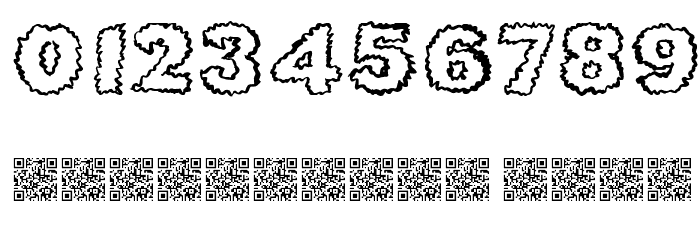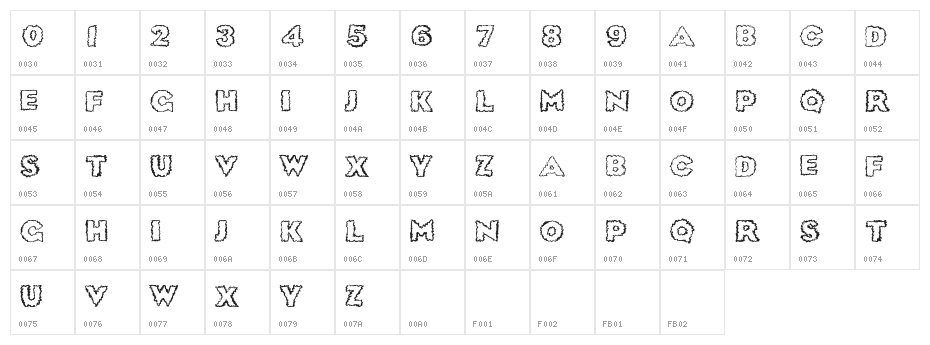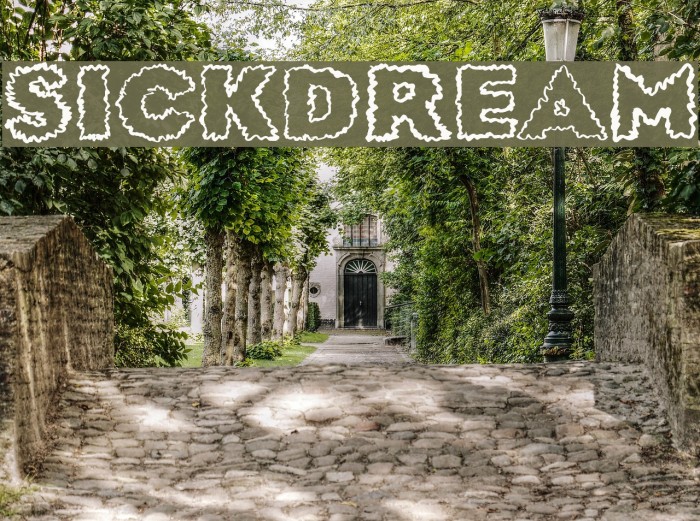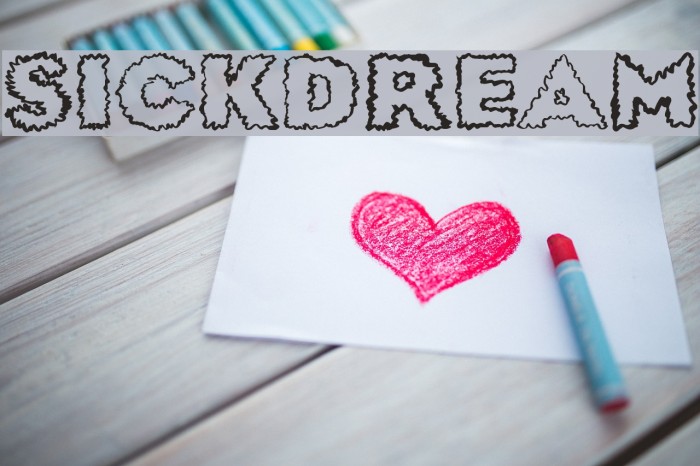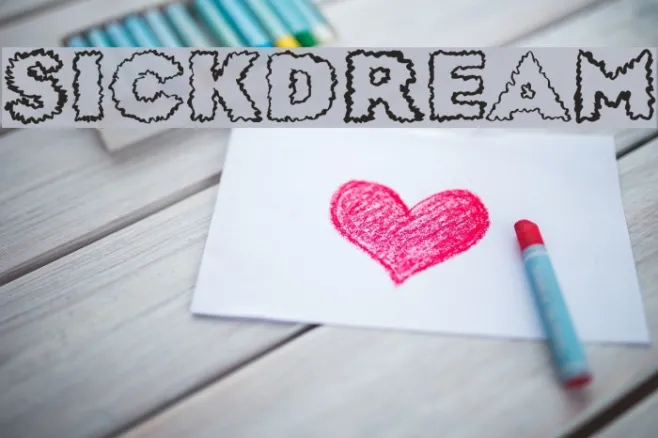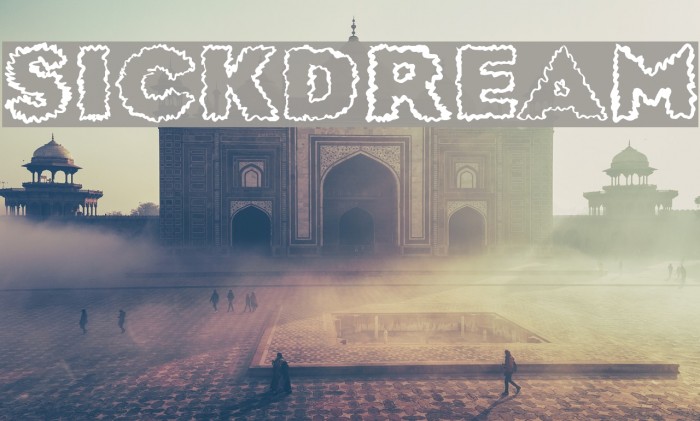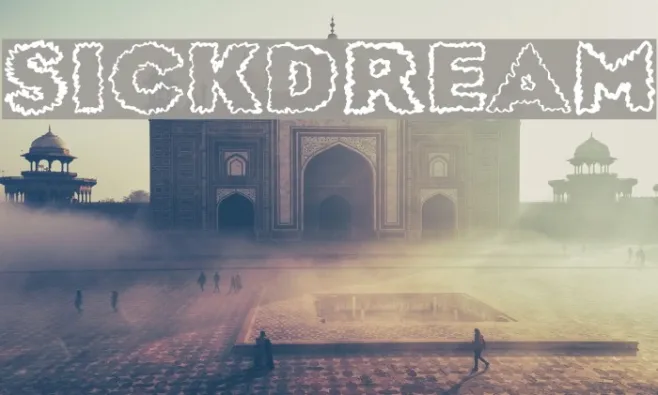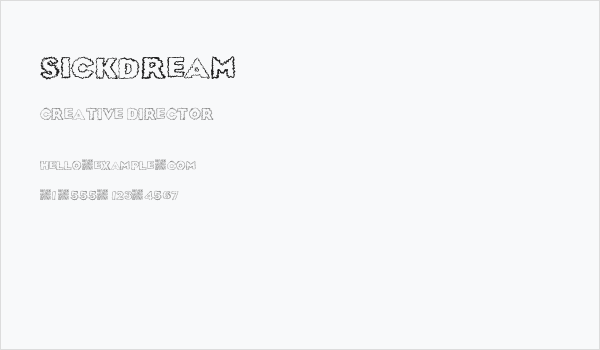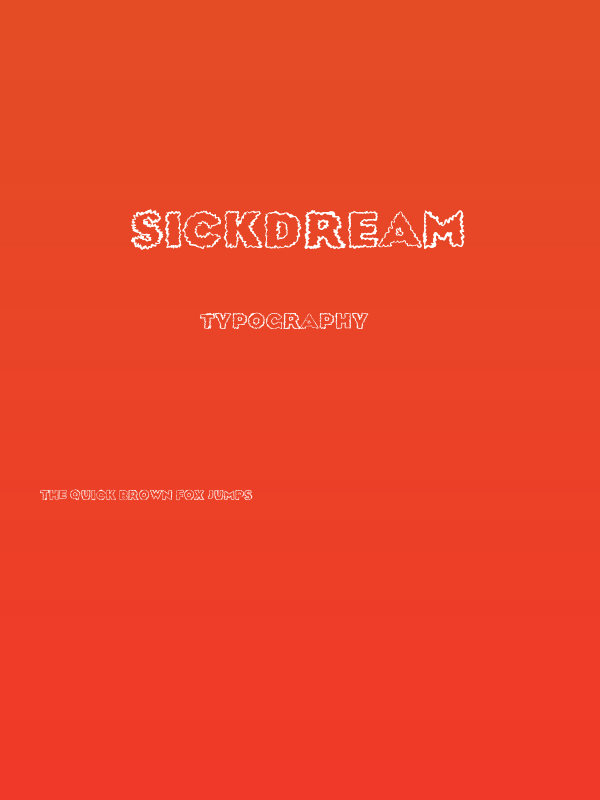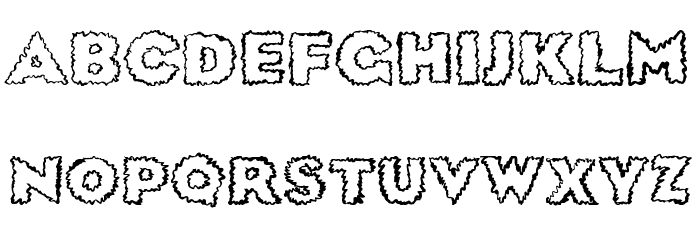
SickDream Font
SickDream Description
This font features a playful and whimsical design with a cloud-like outline around each character. The letters are bold and have a cartoonish appearance, making them stand out with a unique, fluffy texture. The uppercase and lowercase letters maintain a consistent style, with rounded edges and a slightly irregular shape that adds to the font's charm. The numbers and special characters follow the same design principles, ensuring a cohesive look across all elements. This font is perfect for projects that require a fun and lighthearted touch.